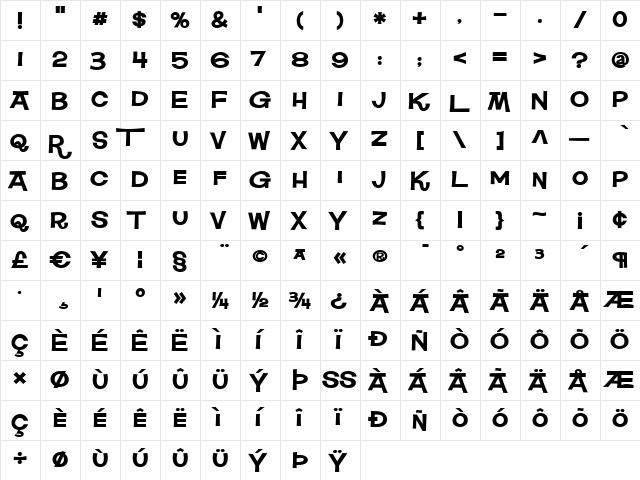
Square Meal Hearty Medium
| Foundry | Font Diner |
| Designer | Stuart Sandler |
Design Context for Square Meal Hearty Typeface
Square Meal Hearty is a composed and adaptable typeface that performs quietly and consistently across a wide range of design contexts.
Pro Tip: Use Square Meal Hearty in both headline and body roles to test its range before committing to a single application.